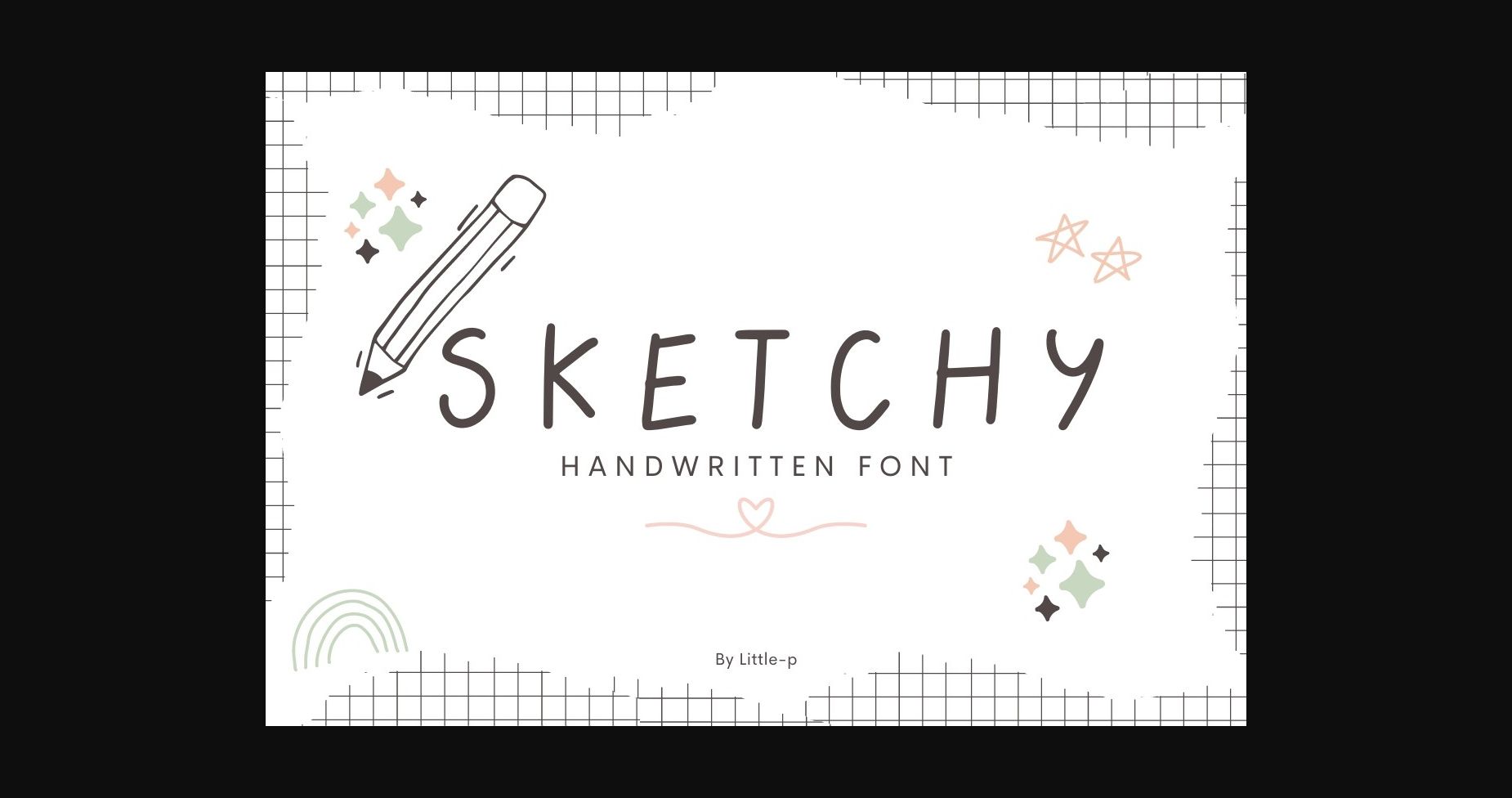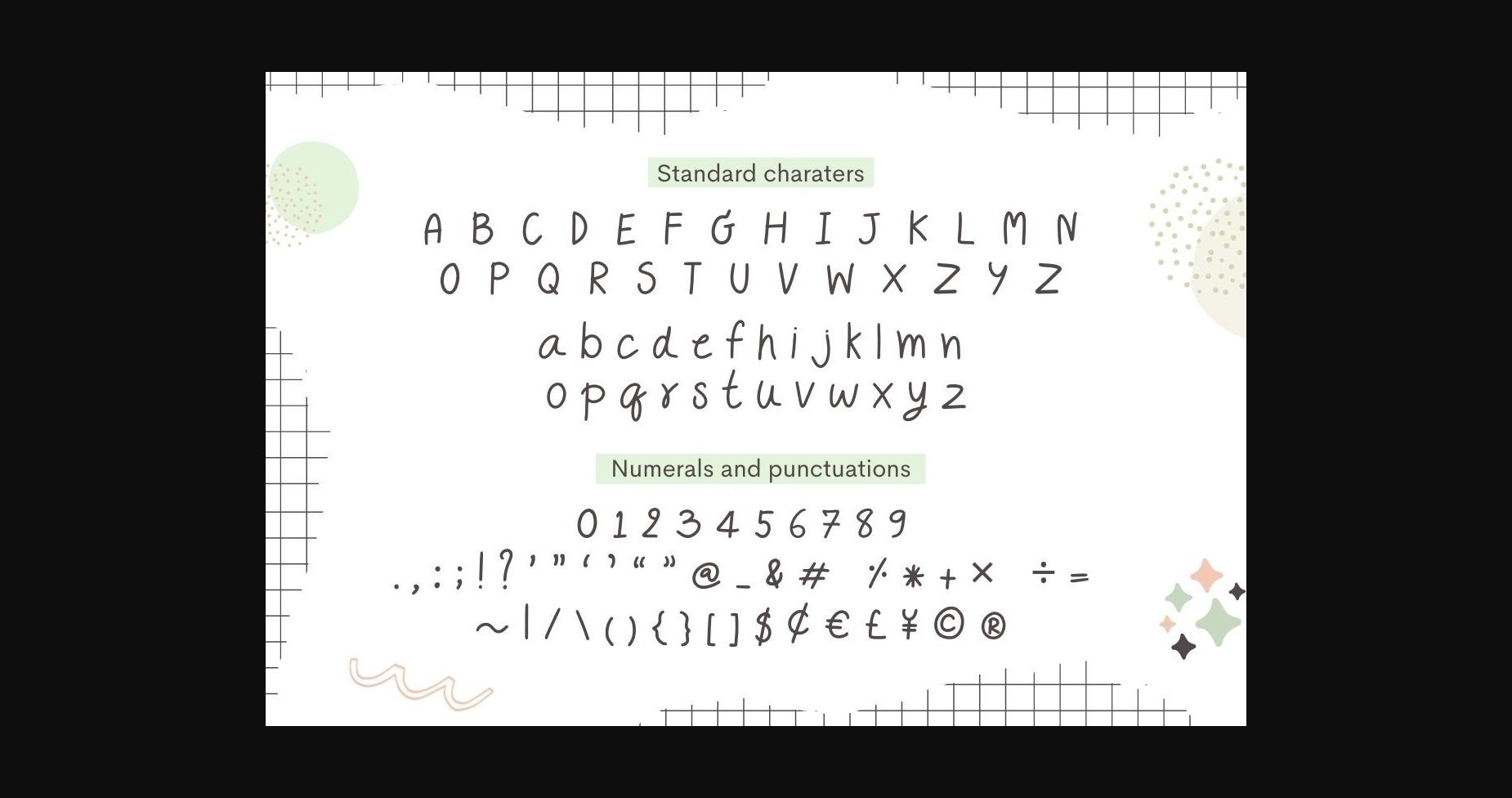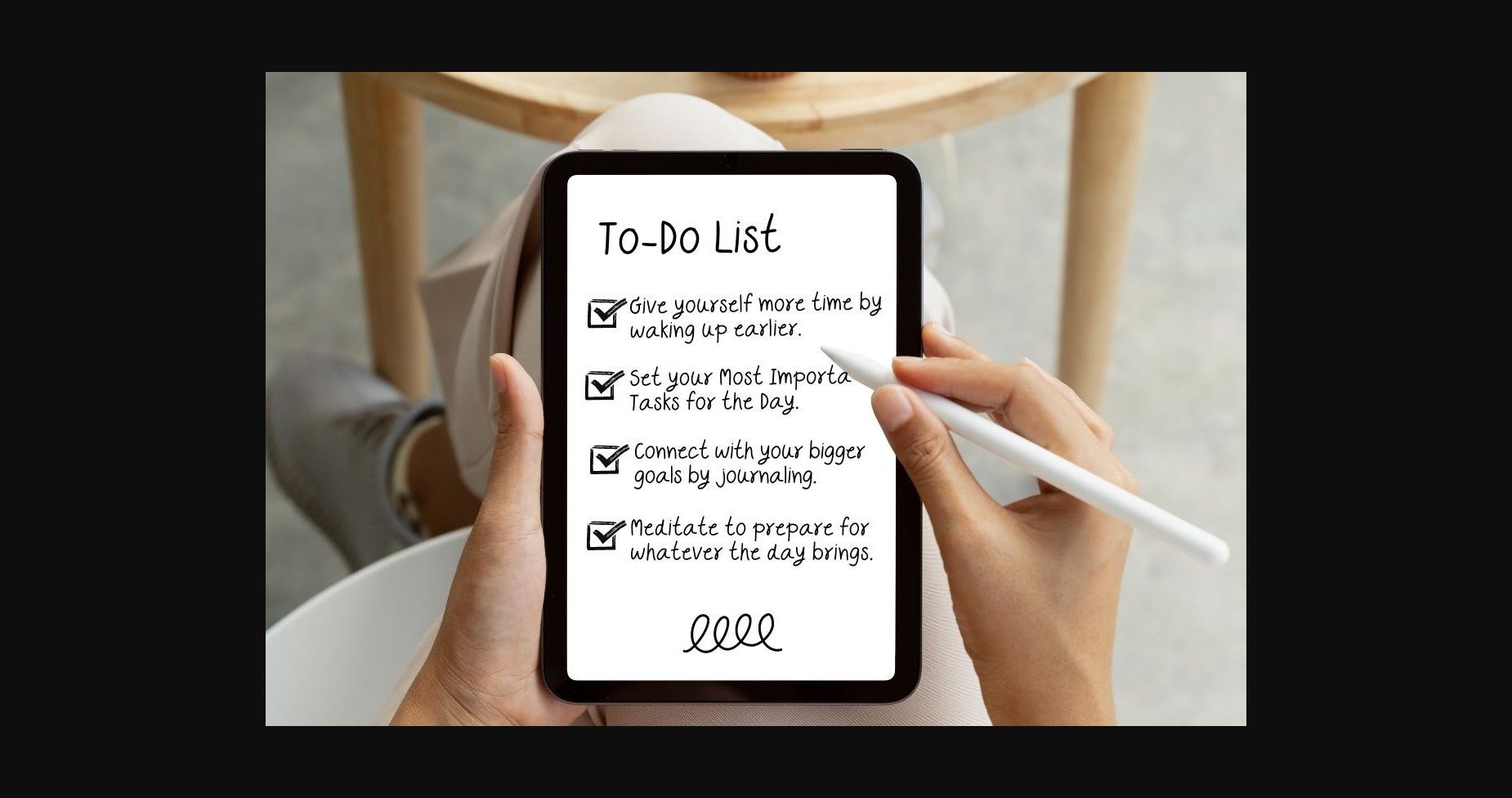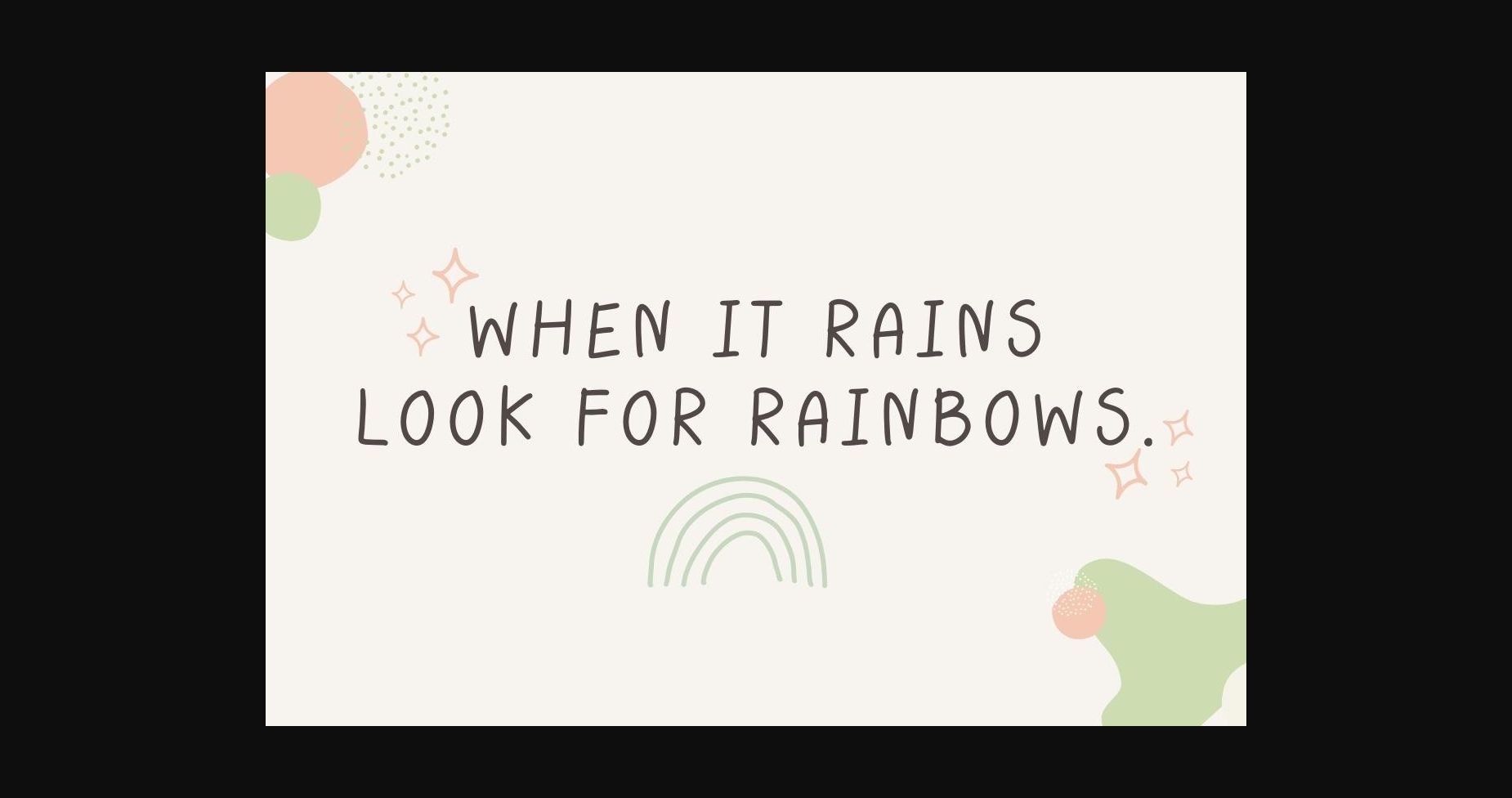
About Sketchy Font
Introducing “Sketchy” Designed with simplicity in mind, Sketchy is a straightforward handwriting font that is ideal for study and note-taking. With its clean and legible letterforms, this font ensures that your words are easily readable, allowing you to focus on your studies and organize your thoughts effectively. Whether you’re jotting down lecture notes, creating study guides, or organizing your to-do lists, Sketchy provides a familiar and comfortable writing experience.